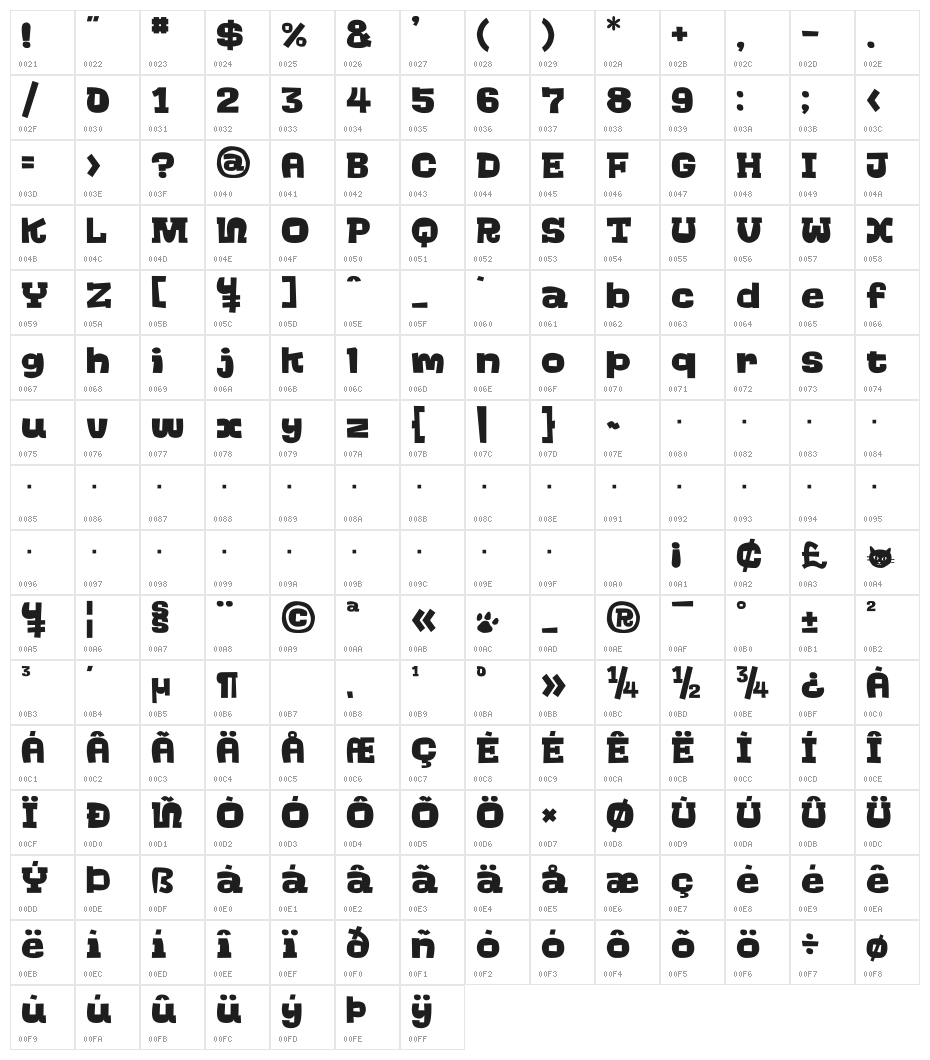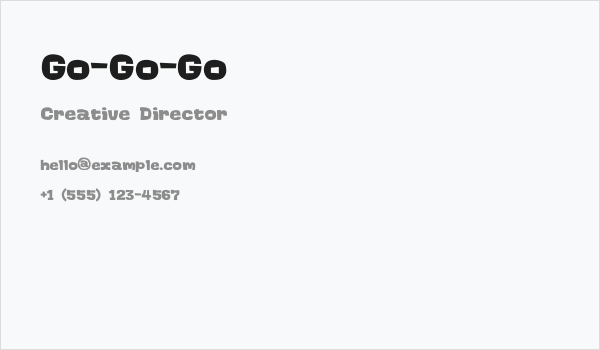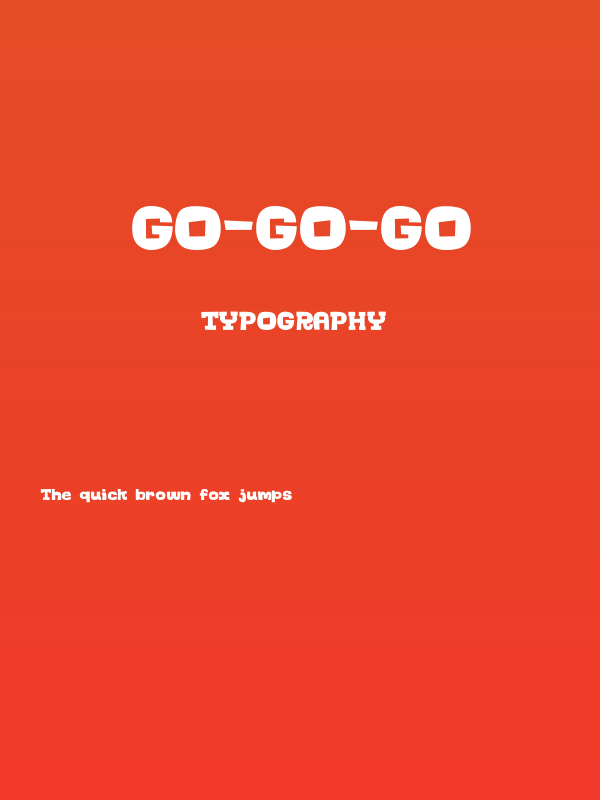
Go-Go-Go Font
Go-Go-Go Description
This font features a bold and playful design with a unique, chunky appearance. The characters have a strong presence, with thick strokes and a slightly condensed form that gives it a compact look. The rounded edges and smooth curves add a friendly and approachable feel, making it ideal for eye-catching designs. The uppercase and lowercase letters maintain a consistent style, while the numerals and special characters complement the overall aesthetic. This font is perfect for projects that require a fun and energetic vibe.
| Overall Style | Playful, Energetic |
| Proposed Projects | Ideal for children's books, playful branding, posters, and event invitations. |